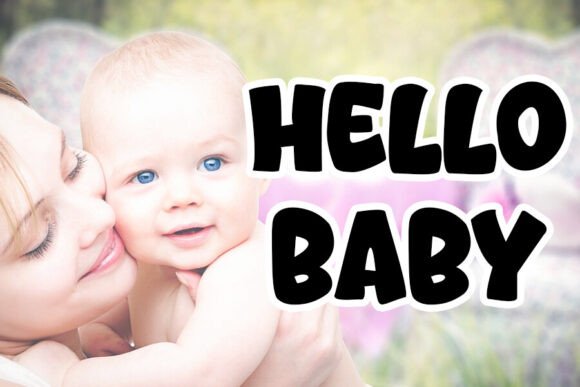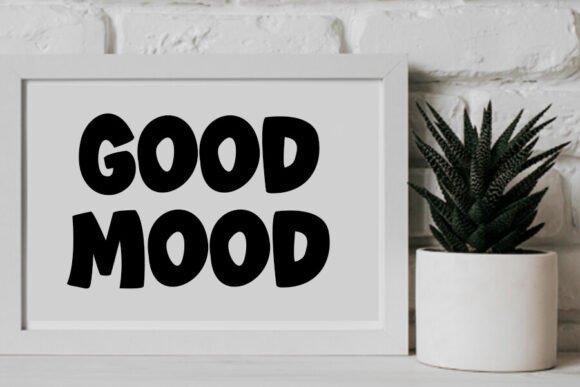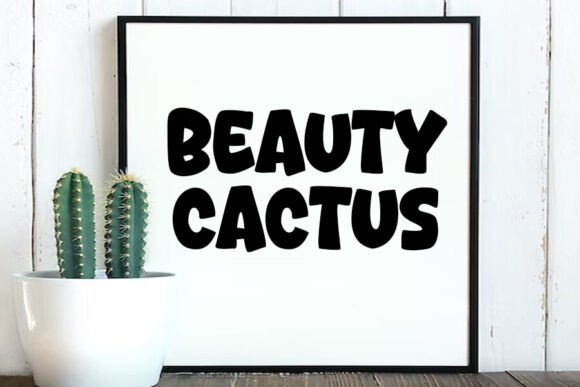
Magicial Vintage Font
About the Magicial Vintage Font
Discover the charm of Magicial Vintage Font. This font is a perfect blend of modern aesthetics and classic appeal. Introducing Magical Vintage – the aesthetic, versatile typeface etching charisma on your digital canvas. Seamlessly blending into a myriad of design needs; its allure is perfect for enriching your YouTube banners, adding flair to cover logo mockups, and creating distinct sophistication in wedding invitations. An excellent choice for ID cards, flyers, and crafts, this font brings your ideas to life in the most visually compelling ways. With Magical Vintage embedded in your venture, the growth and elevation of your business is inevitable. Beyond its practicality, this font takes pride in its simplicity paired with an unparalleled uniqueness, bringing the vintage charm back to life in your design endeavours.
Magicial Vintage Font Usage Examples
Magicial Vintage Font Example